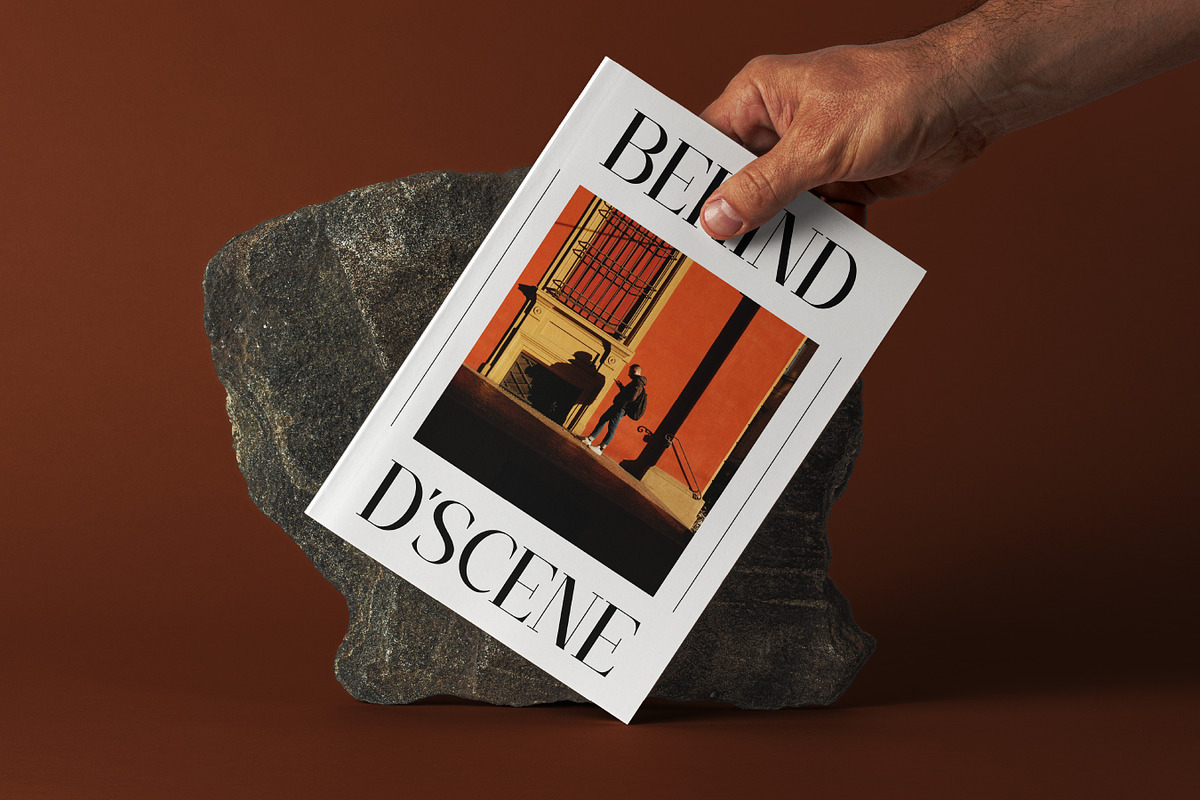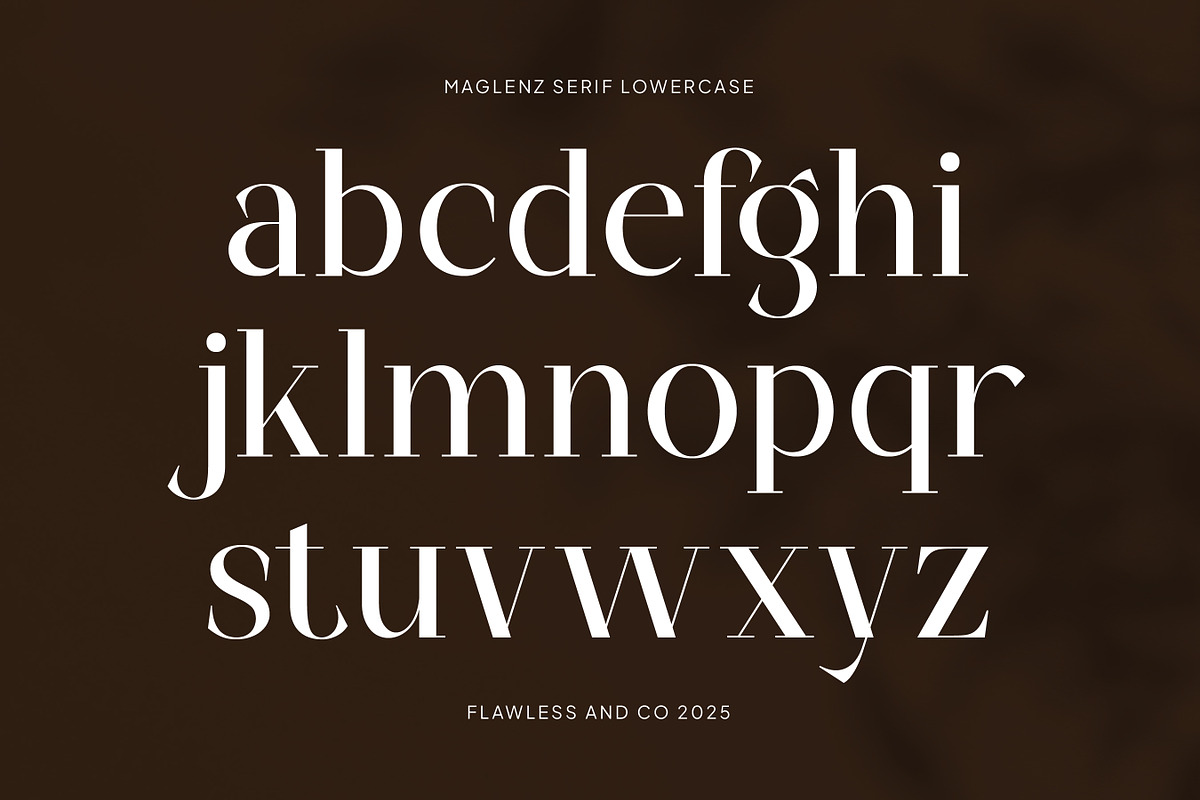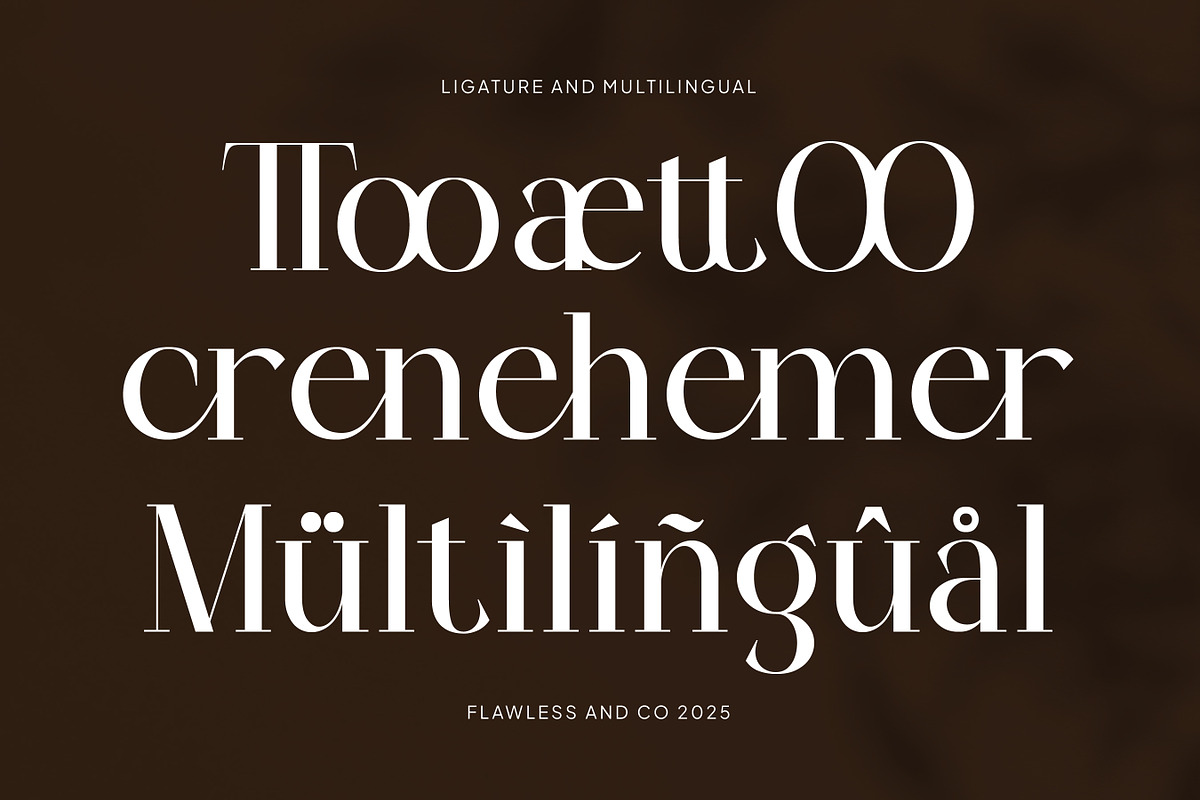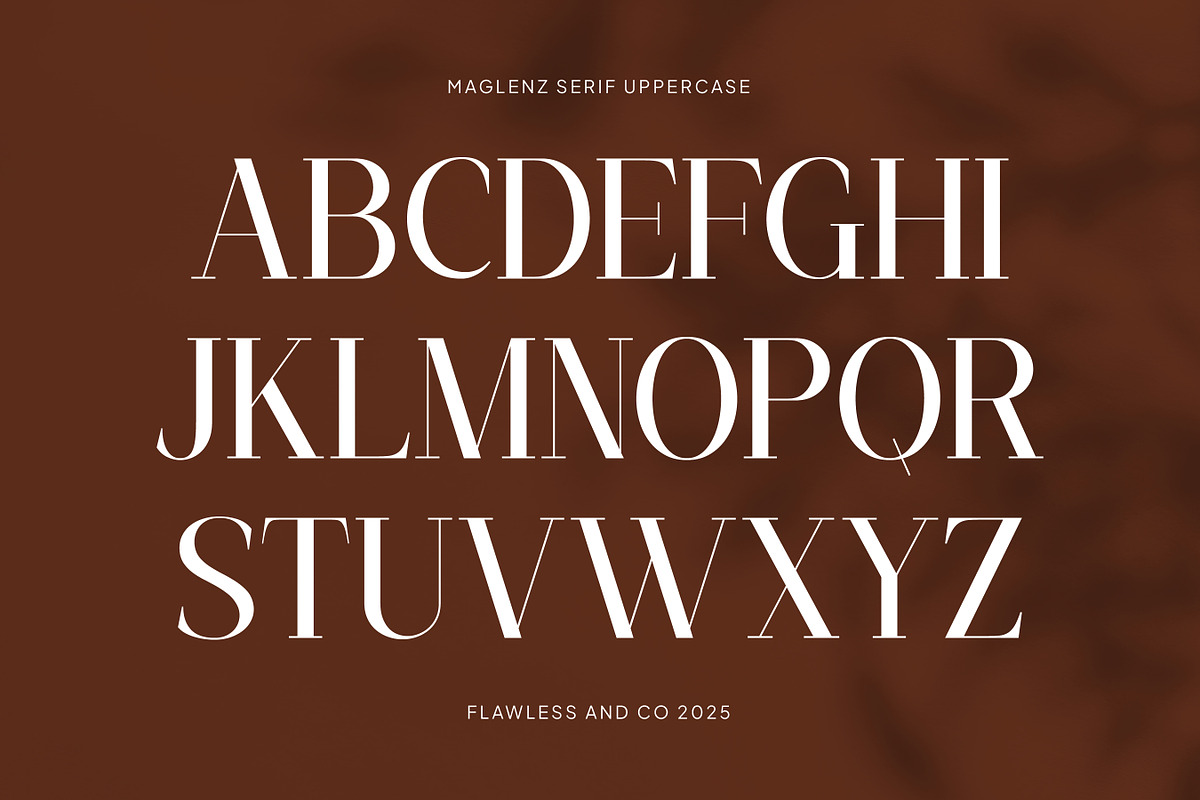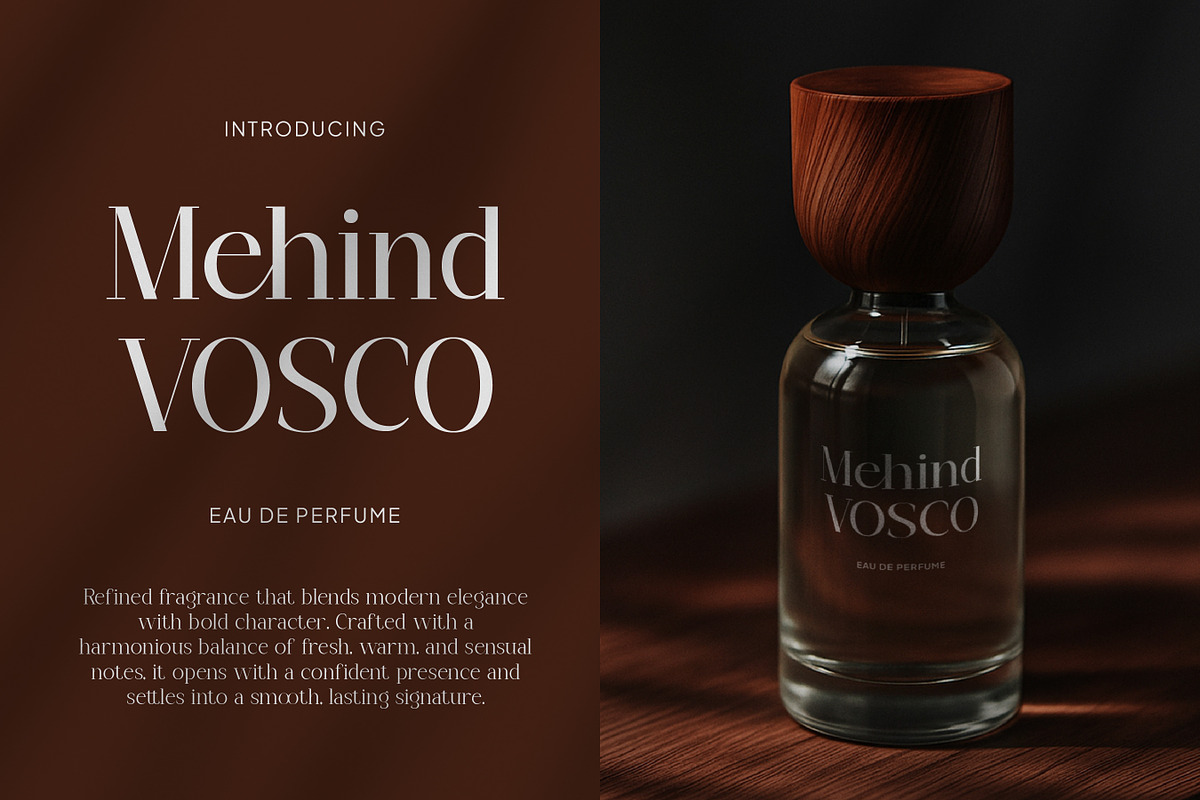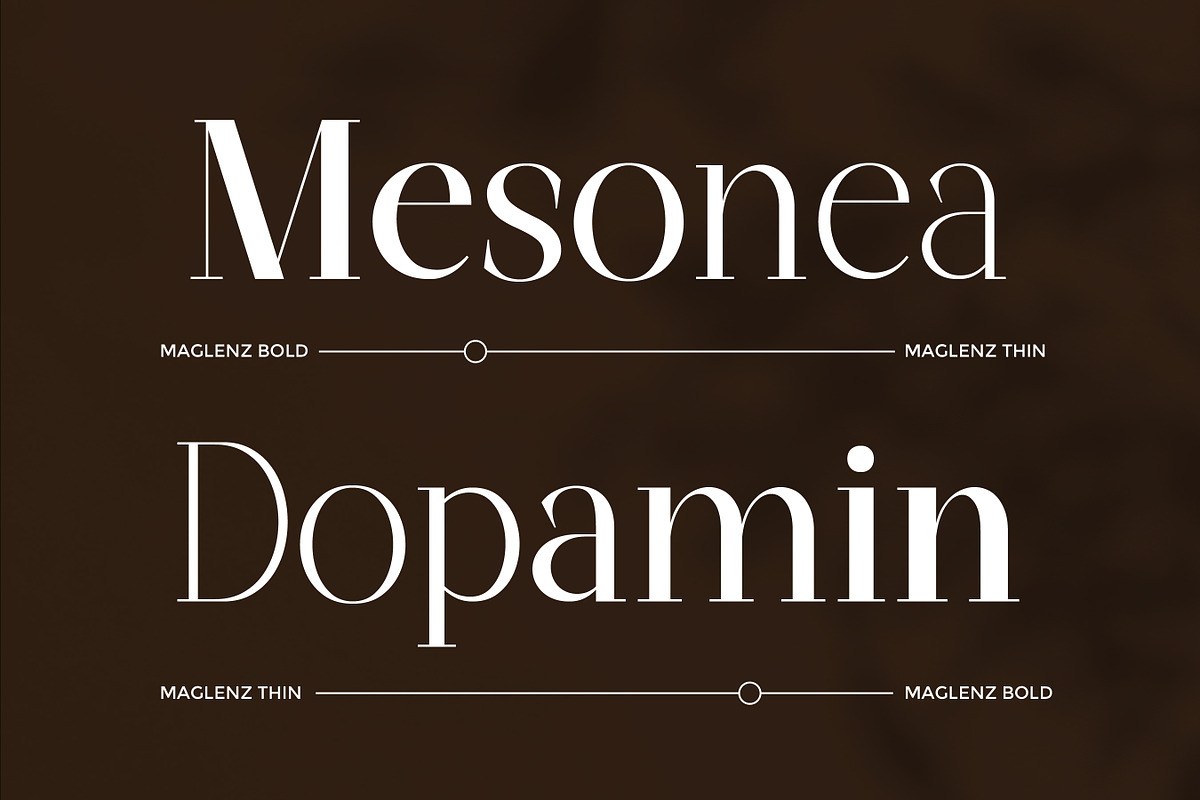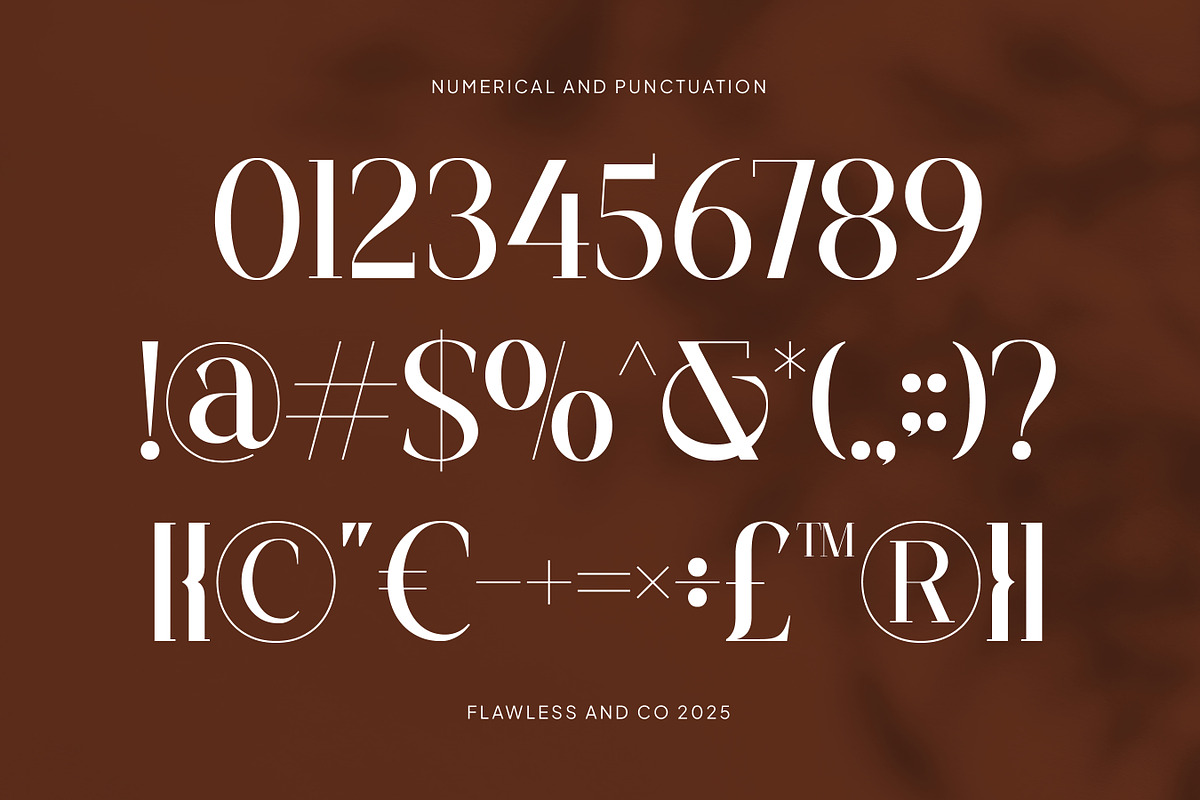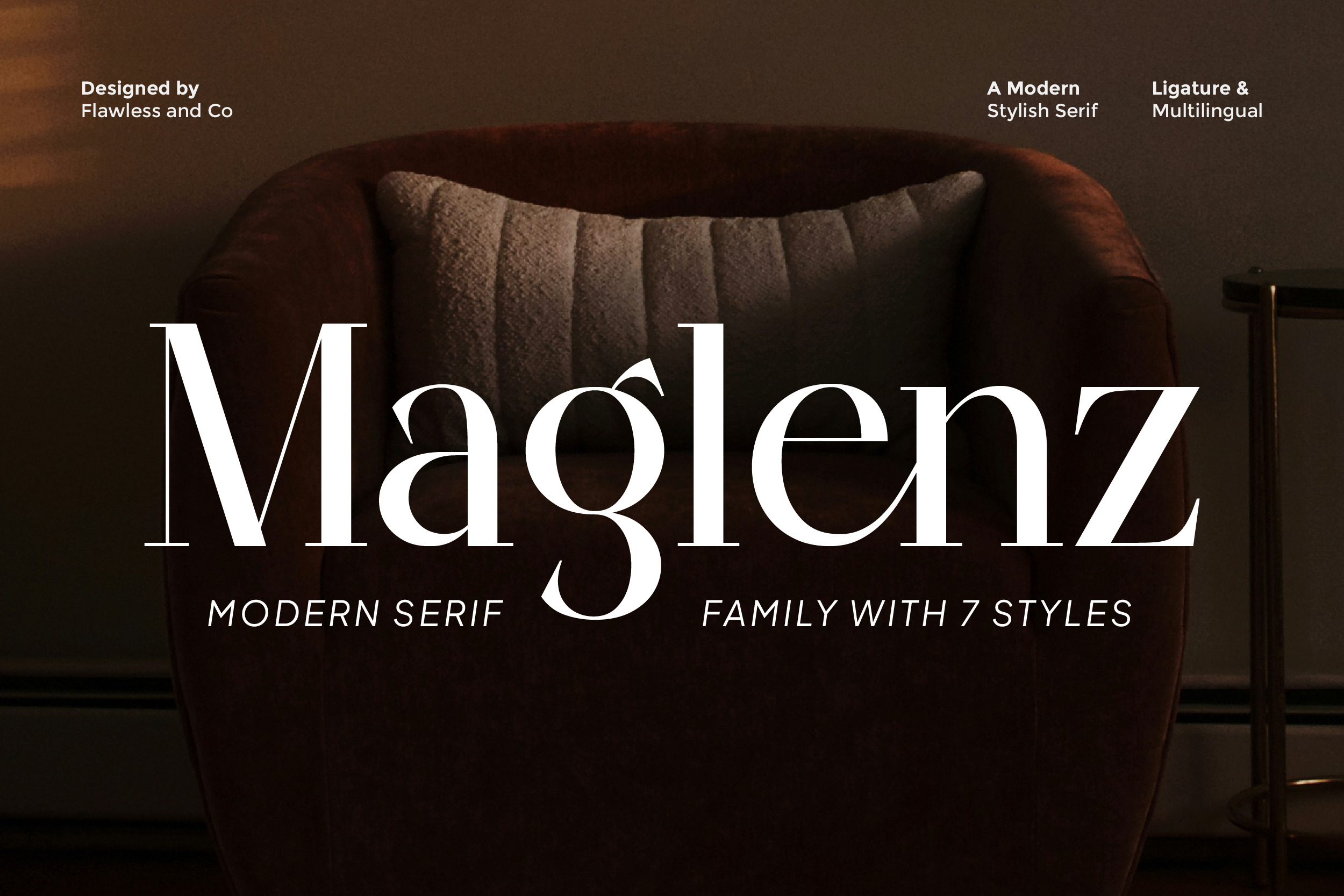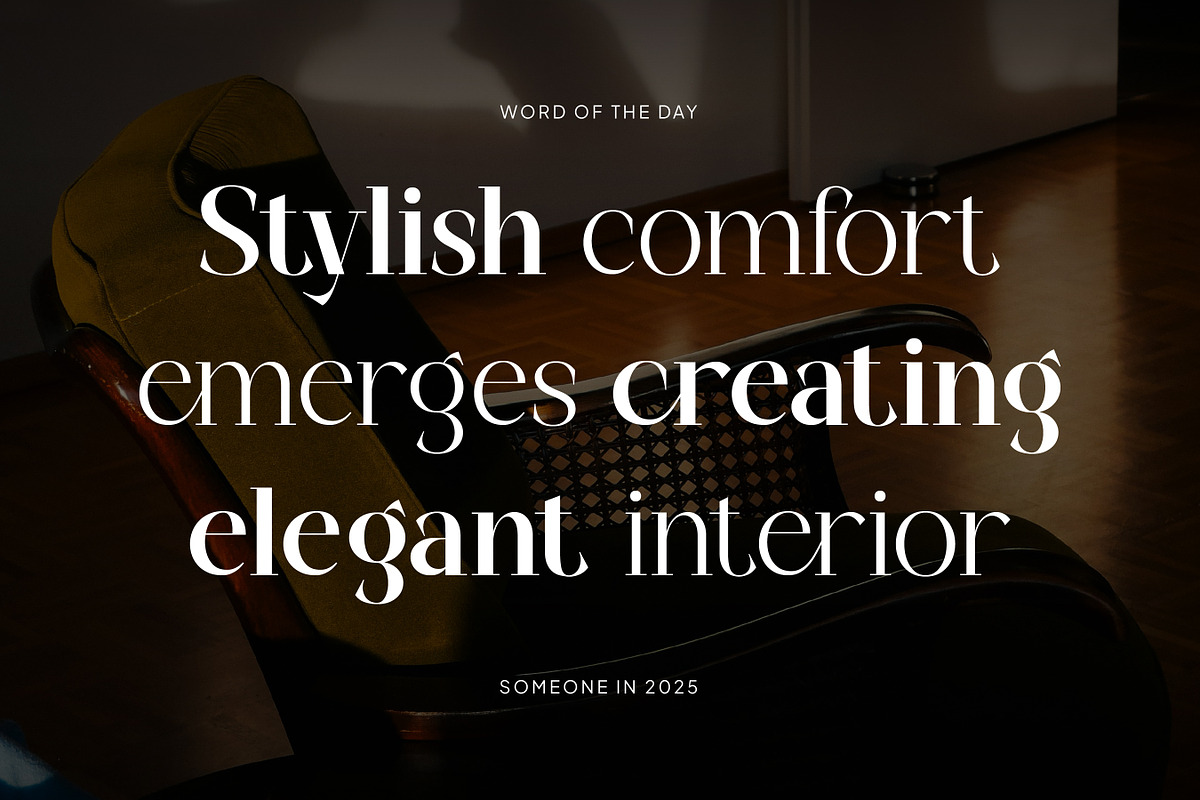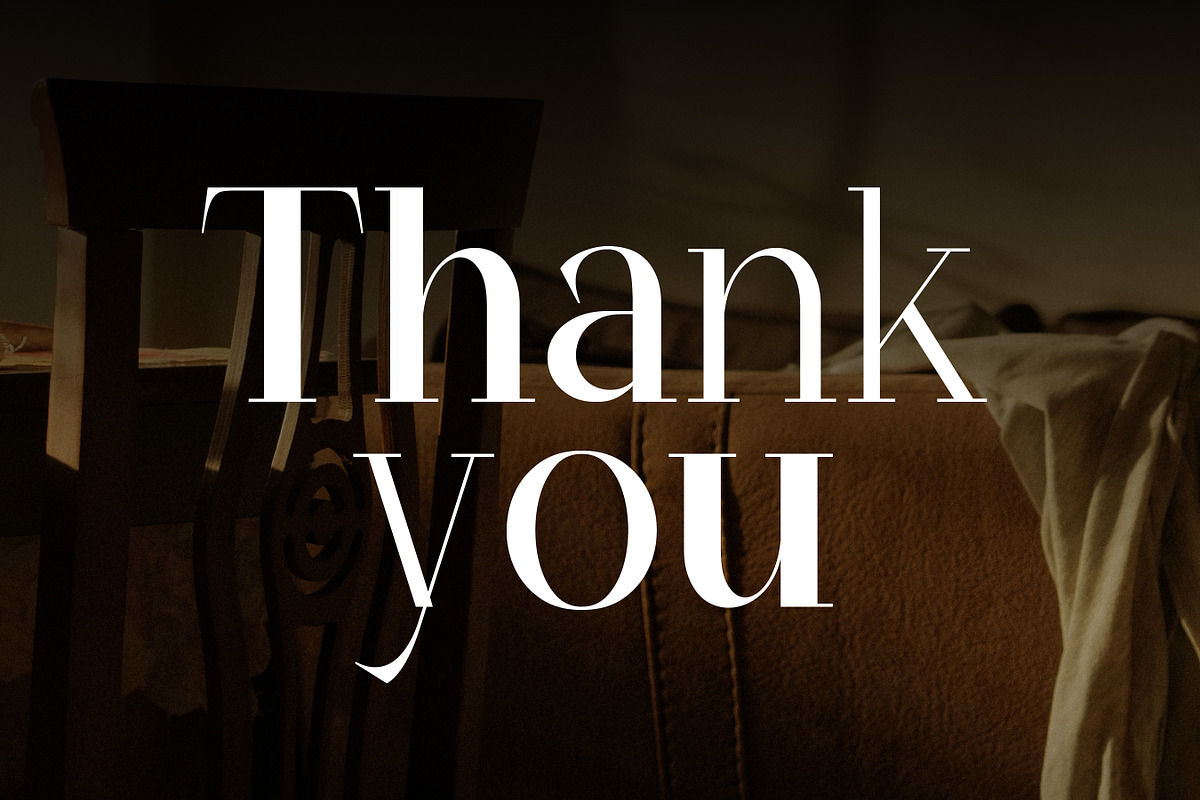
Maglenz - Serif Family Font
Maglenz - Modern Serif Family Font
Maglenz is a modern serif family font designed to bring elegance, clarity, and versatility into one complete type system. With its refined shapes, stylish contrast, and balanced proportions, Maglenz delivers a contemporary serif look that feels premium, clean, and highly adaptable. Featuring multiple styles, this font family allows designers to create consistent and expressive visual hierarchies across various design needs.
A Must-Have Font for Brand and Logo Creators and Designers
With its well-crafted styles and modern elegance, Maglenz helps elevate logos, brand systems, and marketing visuals. The font family structure ensures seamless pairing between headlines, subheadings, and body text while maintaining a cohesive aesthetic.
Why Choose Maglenz for Brand and Logo Projects?
Maglenz offers a perfect balance between modern style and timeless serif elegance. Its versatility across multiple weights and styles makes it easy to adapt for various brand tones—whether minimal, luxurious, or editorial—while maintaining strong readability and visual impact.
Suitable For
- Brand and logo design
- Editorial and magazine layouts
- Fashion and lifestyle branding
- Luxury and corporate identities
- Website and UI headlines
- Packaging and print design
- Marketing and promotional materials